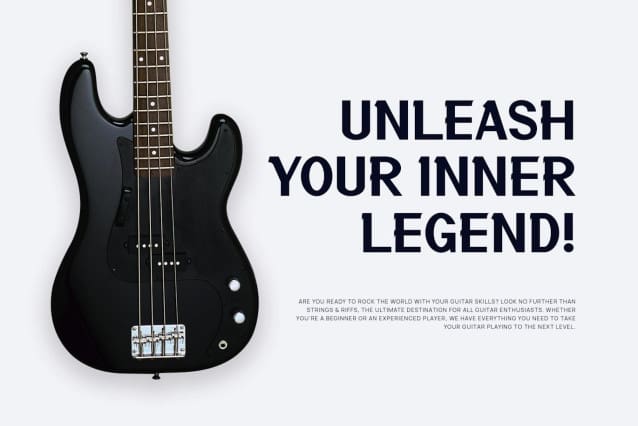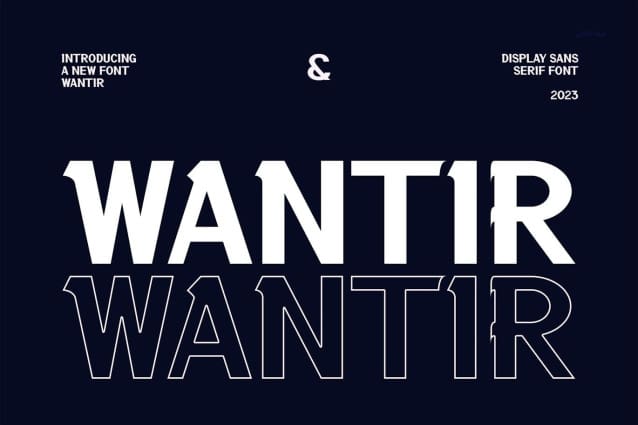
Wantir Display Font
Wantir Display Font, a modern sans serif font with an elegant style, perfect for brands, logos, invitations, magazines, product packaging and more.